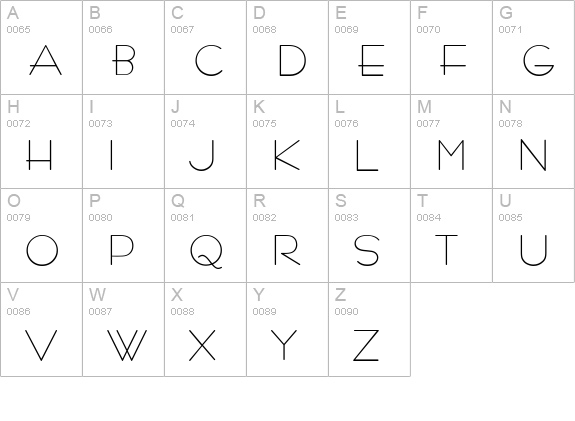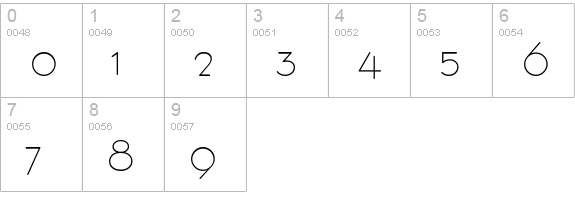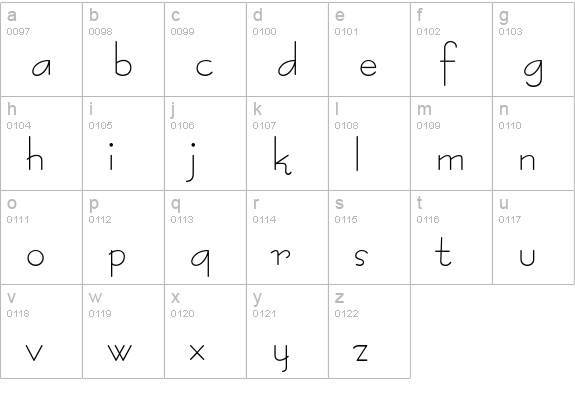
BernhardFashionHmk Font Details
The BernhardFashionHmk font exudes elegance and sophistication with its sleek and stylish design. Perfect for adding a touch of class to any project, this font features clean lines and distinctive letterforms that will make your text stand out. Whether you're designing a logo, creating a poster, or crafting a stylish invitation, BernhardFashionHmk is sure to make a statement. And the best part? This stunning font is available for free download at FontsMarket.com, giving you access to a high-quality typeface without breaking the bank. So go ahead and elevate your designs with the timeless appeal of BernhardFashionHmk font.